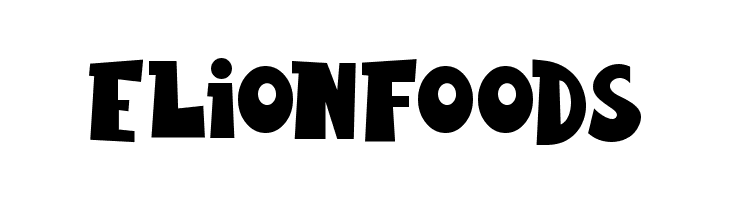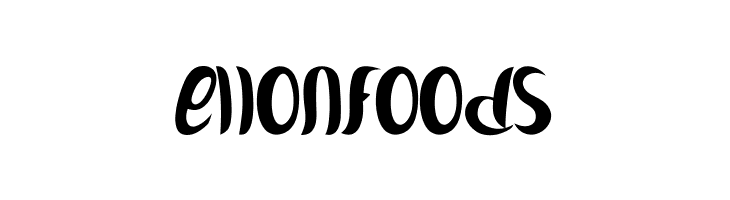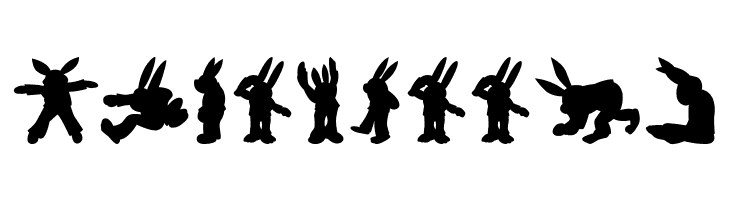
A bold, playful handwritten font with rounded strokes and lively character.
A playful, bold font with rounded strokes and a dynamic, informal style.
A dynamic and flowing script font with elegant, interconnected strokes.
A playful, bold font with curvy, high-contrast letterforms.
A decorative font using rabbit silhouettes for each character.
A playful, bold font with rabbit ear-like ascenders and rounded characters.
A bold, playful font with exaggerated curves and a whimsical style.
A bold, playful font with rounded, exaggerated shapes for a whimsical appearance.
A playful and quirky font with bold, rounded strokes and irregular letterforms.